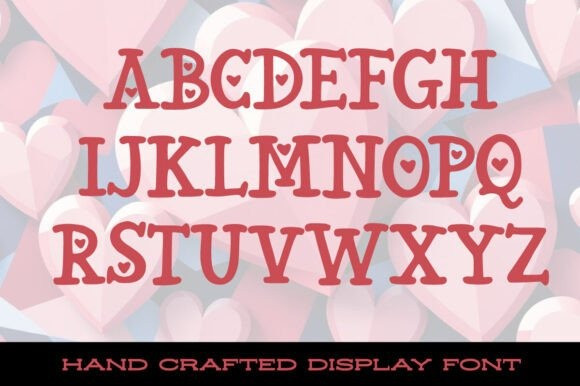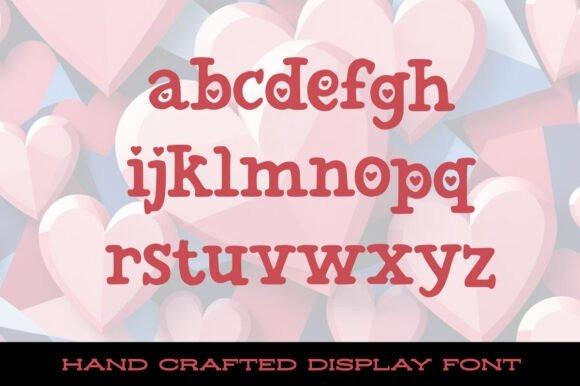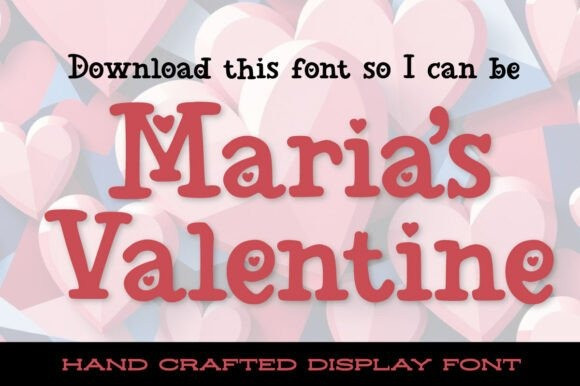
Marias Valentine Display Font
Marias Valentine Display Font is a charming hand-drawn font bursting with love and whimsy. With its playful strokes and imperfect yet heartfelt letterforms, this typeface captures the warmth of handwritten love notes and romantic doodles. Whether you’re designing Valentine’s Day cards, wedding invitations, or heartfelt messages, Maria’s Valentine adds a sweet and sentimental touch. Perfect for posters, social media graphics, and anything that needs a little extra love, this font is sure to make hearts flutter!